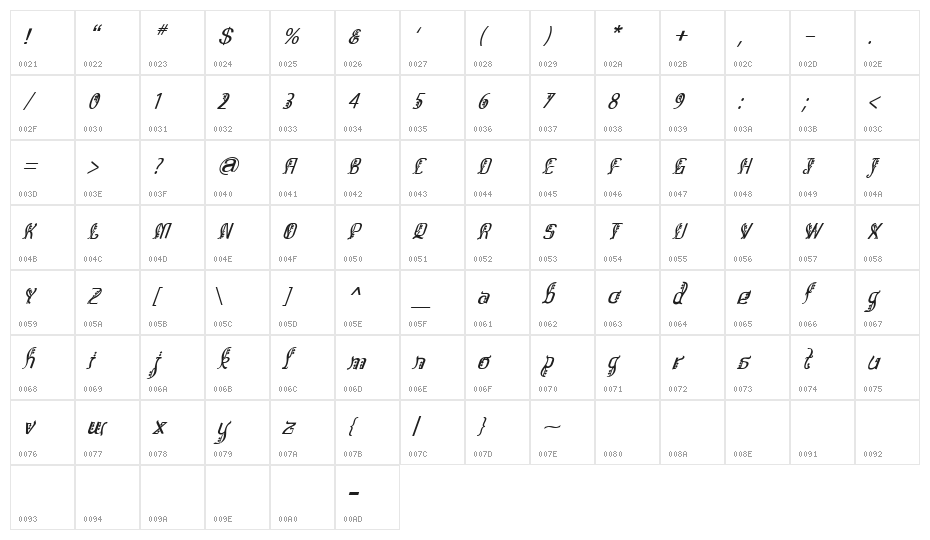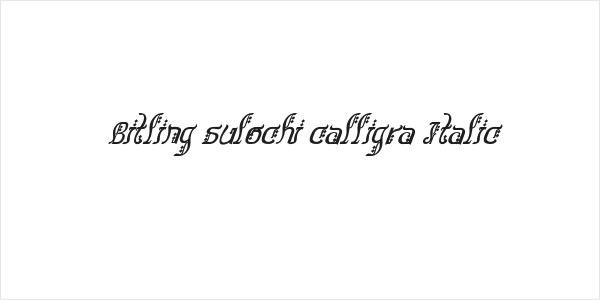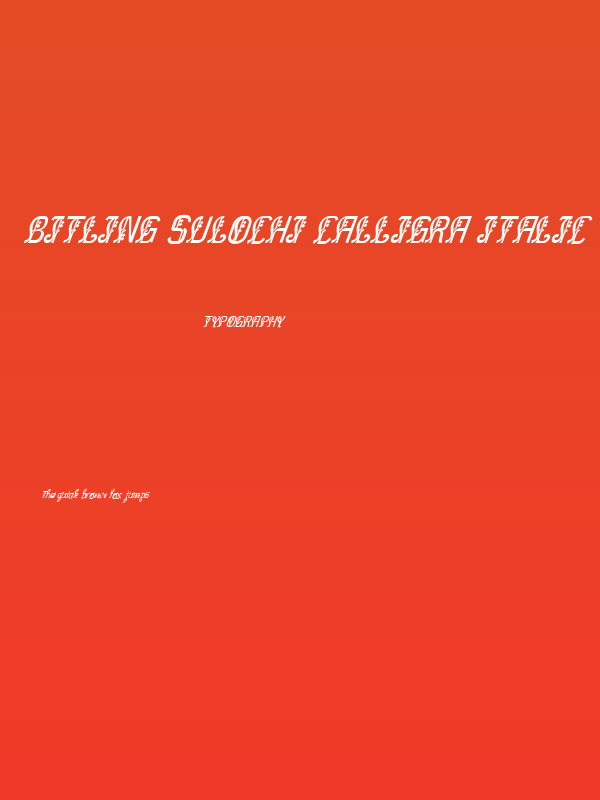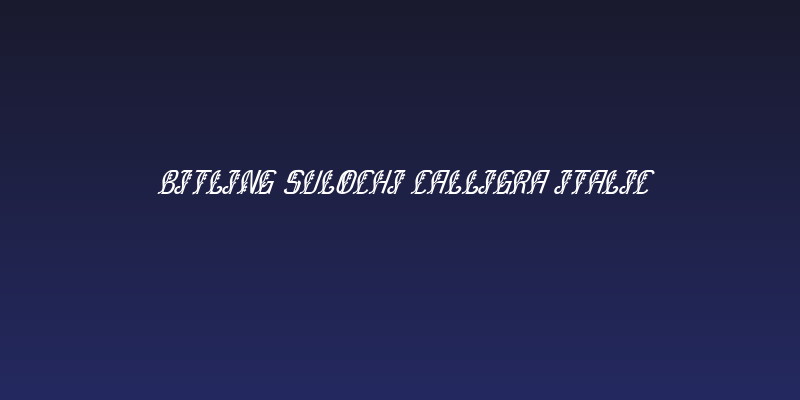
Bitling sulochi calligra Italic Font
Bitling sulochi calligra Italic Description
This font exudes a decorative and ornate style, characterized by its intricate and flowing letterforms. The uppercase letters are bold and embellished with unique flourishes, giving them a dramatic and artistic appearance. The lowercase letters maintain the same decorative quality, with elegant curves and detailed accents. The numbers are consistent with the overall style, featuring similar embellishments. The special characters are equally ornate, adding a cohesive look to the entire set. This font is designed with a high contrast in stroke thickness, enhancing its visual impact.
| Proposed Projects | Ideal for wedding invitations, luxury branding, artistic posters, and decorative headings. |